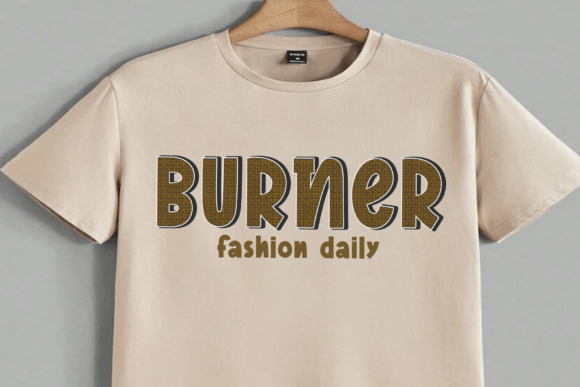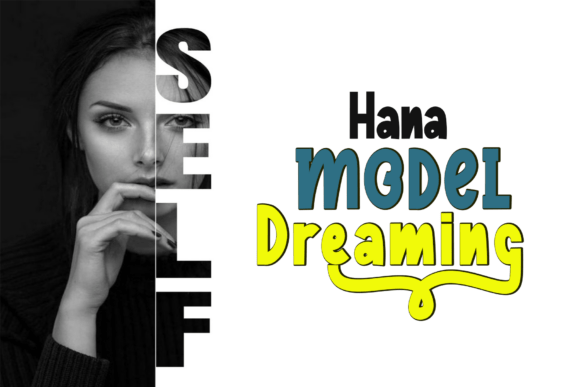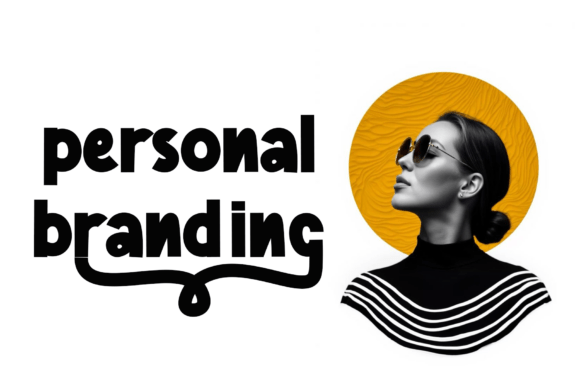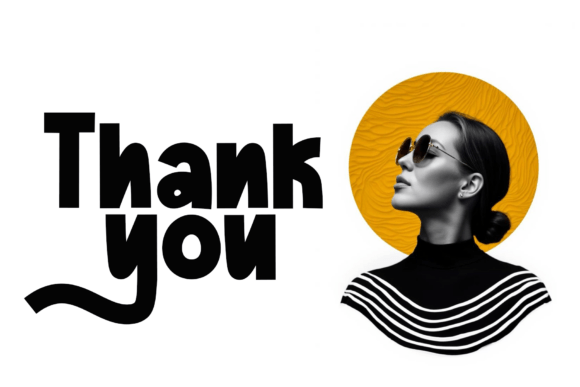
Uncovering the Perfect Typographic Companion
As creatives, we’ve all been there – staring at a blank canvas, desperate for the perfect font to bring our ideas to life. The search can be daunting, but what if we told you that the solution lies in simplicity and elegance? Enter the Hunting Healing Font, a beautiful blend of modern handwritten typography and polished finish.
This delightful display font is designed to add a warm and inviting touch to any design, making it perfect for branding, headlines, packaging, and digital content. With its crisp structure and versatile style, the Hunting Healing Font delivers clarity and charm in equal measure, making it an invaluable asset for designers seeking to elevate their work.
Whether you’re a seasoned pro or just starting out, the Hunting Healing Font is sure to become your go-to companion for creating captivating designs that leave a lasting impression.
Hunting Healing Font Key Features
- Font Family: Hunting Healing Font is a unique, hand-drawn font designed for various creative projects. It comes in 2 font styles: Regular and Bold.
- Character Set: The font includes a wide range of characters, including uppercase and lowercase letters, numbers, and punctuation marks, making it suitable for various applications.
- Unique Characteristics: The font features a unique, hand-drawn design with a mix of modern and vintage elements, making it perfect for projects that require a creative and distinctive look.
Hunting Healing Font Review
Overall, I’m impressed with the unique aesthetic of the Hunting Healing Font. Here are some things that work well: ✨
- The font’s distressed, handwritten feel adds a touch of character to digital designs.
- The varied line widths and letter spacing create visual interest and make the font more engaging.
- The font’s versatility allows it to work well in a range of contexts, from headings to body text.
- The font may be too ornate for certain designs, particularly those that require a more straightforward or modern aesthetic.
- The font’s inconsistent letter spacing and line widths can sometimes make it difficult to read, particularly in smaller font sizes.
In terms of overall impression, I think the Hunting Healing Font is a great choice for designers who want to add a unique touch to their work. While it may not be suitable for every project, it’s a great option for those who want to create a more emotive or personal connection with their audience.
To get the most out of the Hunting Healing Font, use it sparingly to create emphasis and add a touch of elegance to your designs. Pair it with simple backgrounds and bold colors to create a striking visual effect.
The Hunting Healing Font is perfect for:
- Creative projects that require a unique and eye-catching font
- Designs that need to convey a sense of adventure and exploration
- Branding and marketing materials that require a distinctive and memorable font